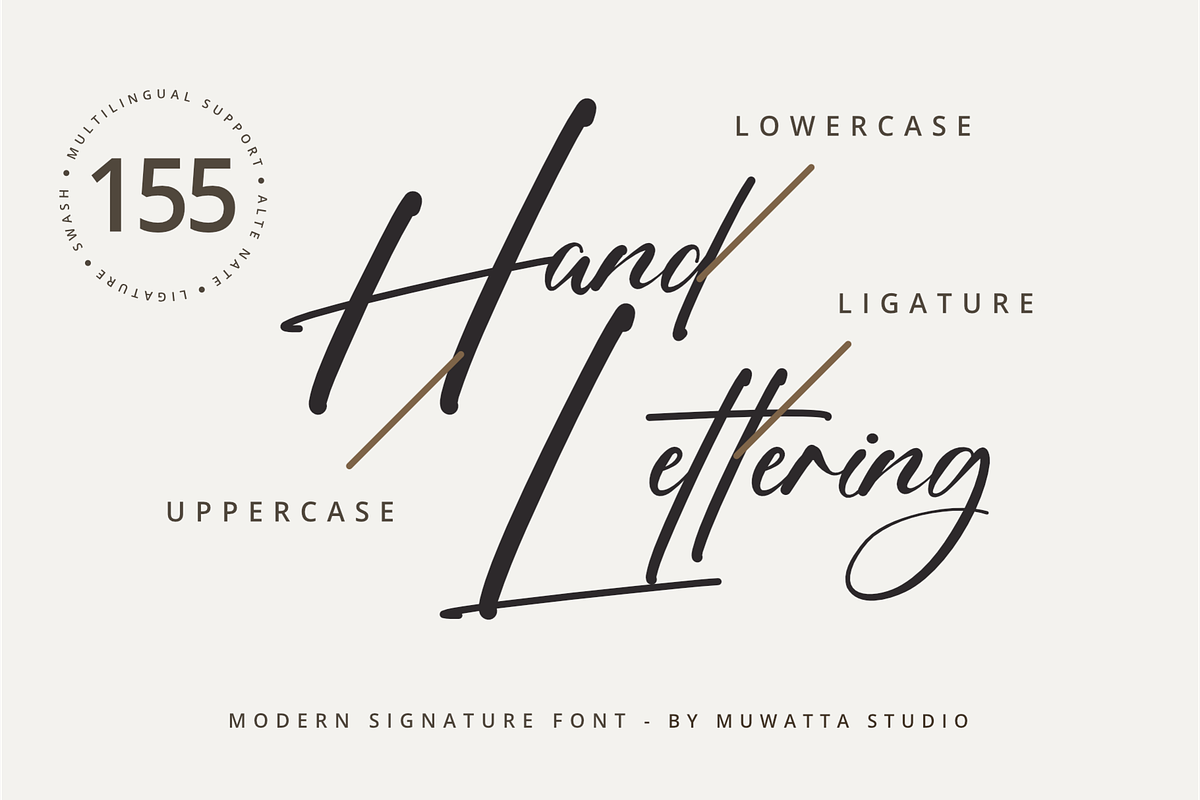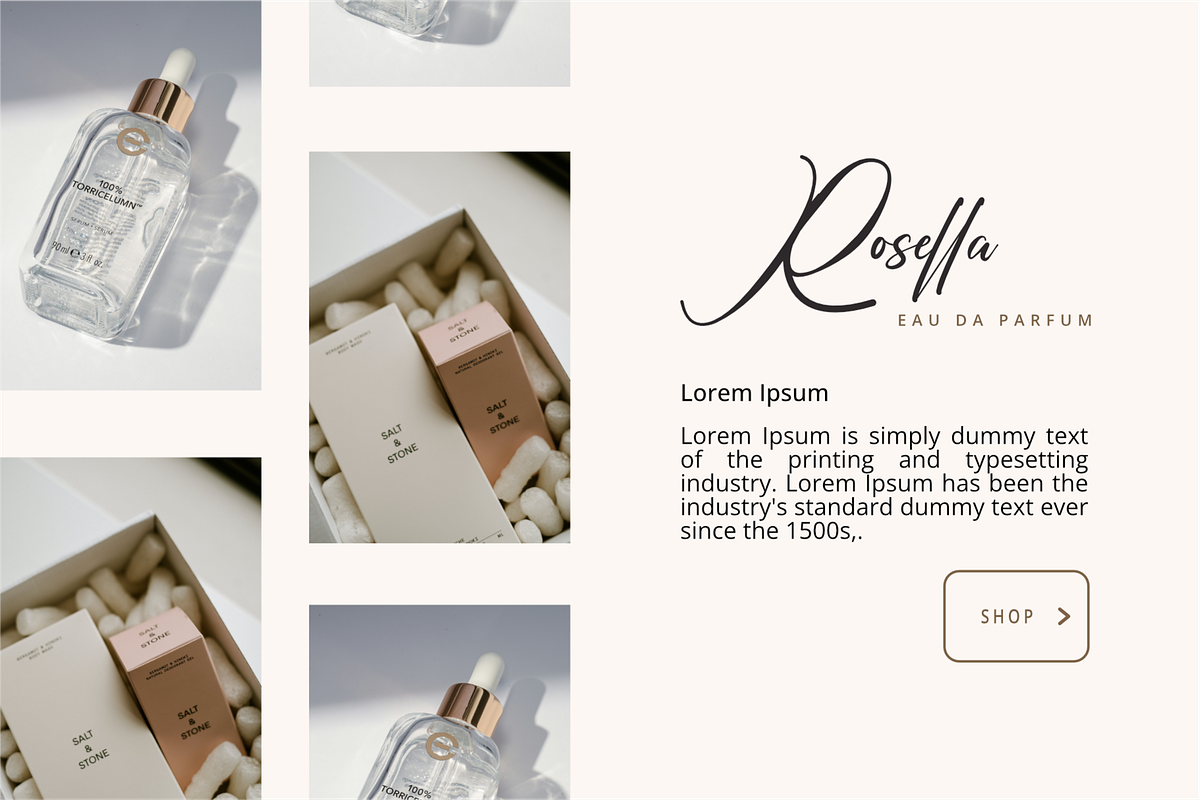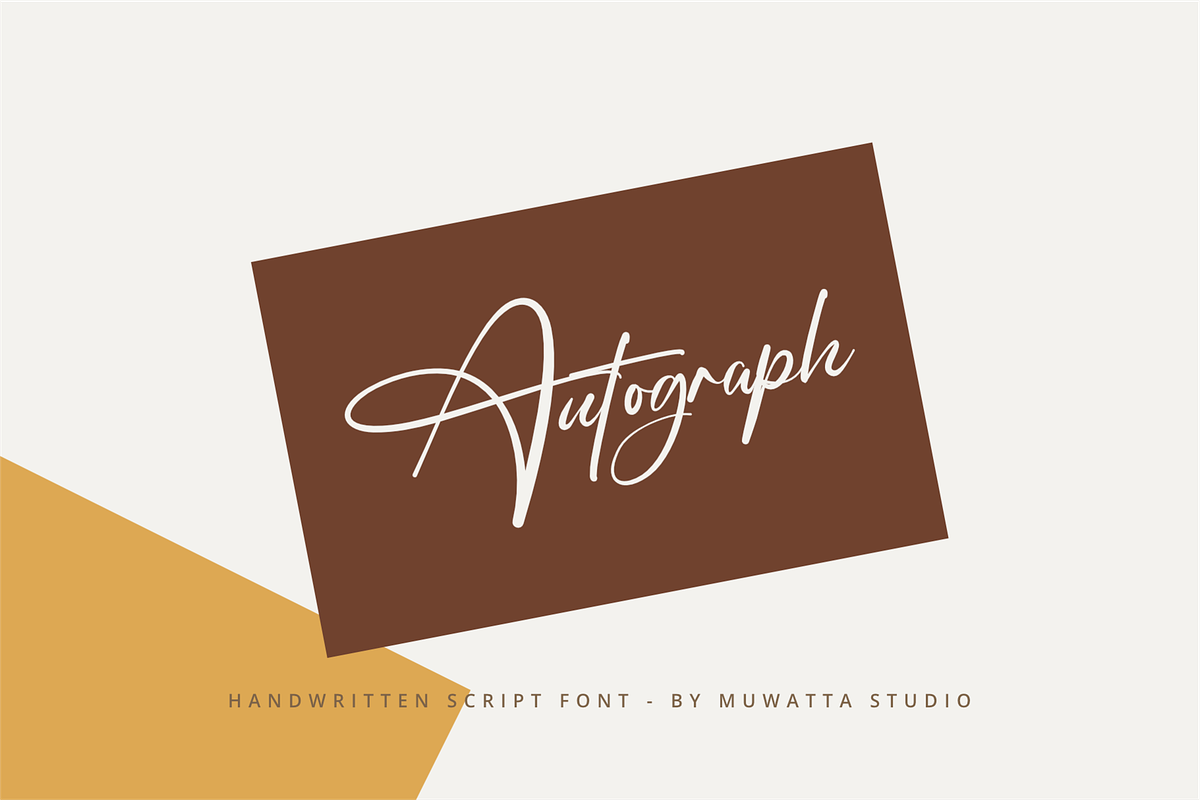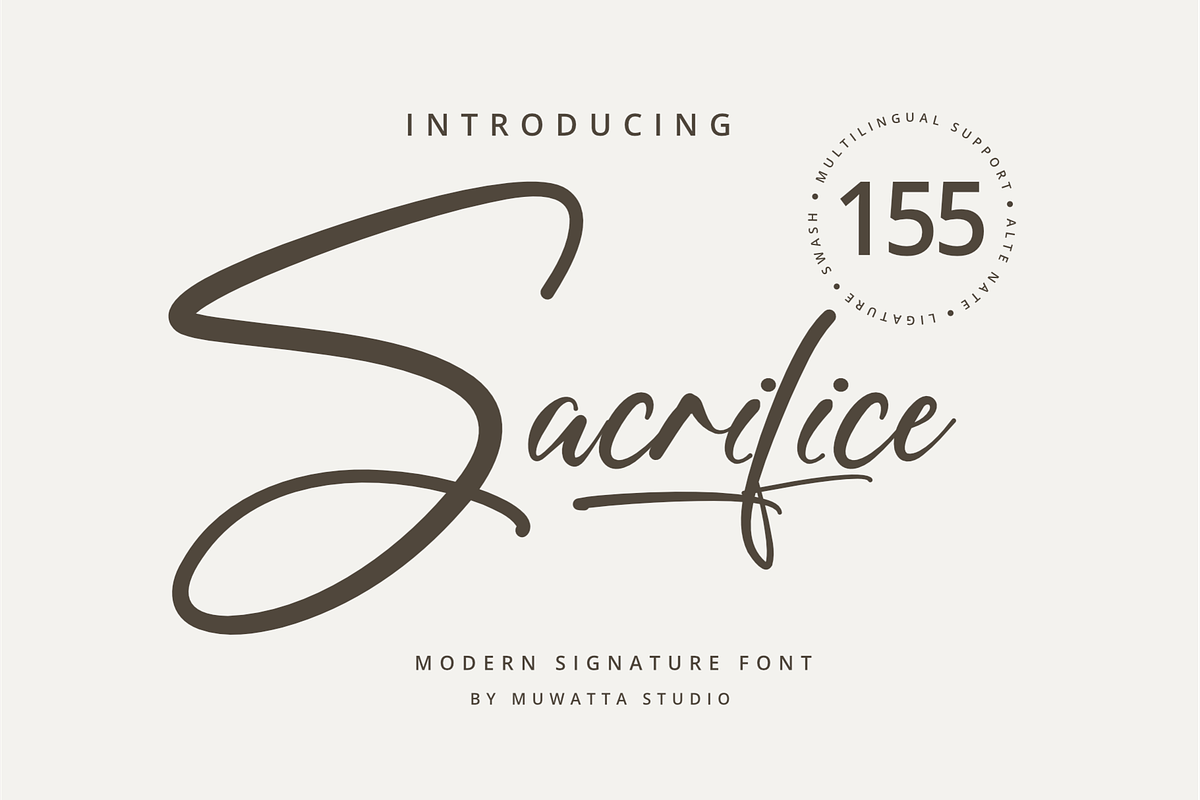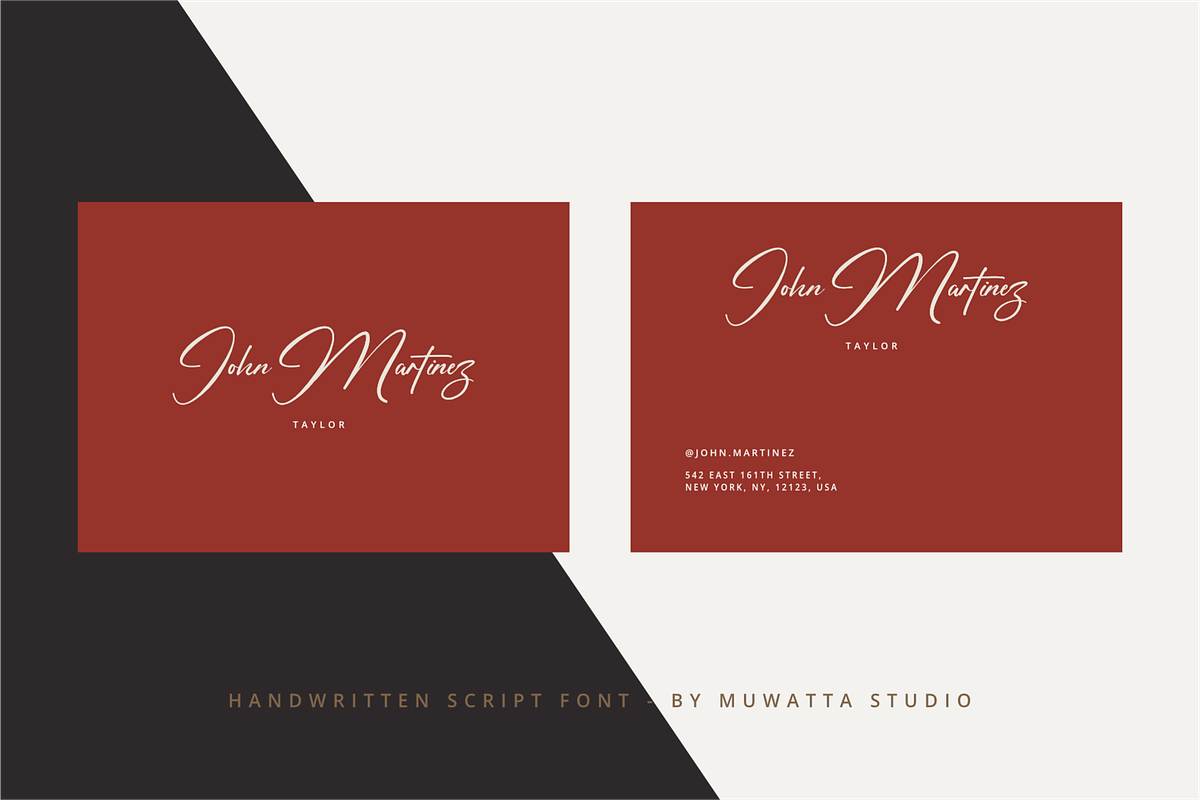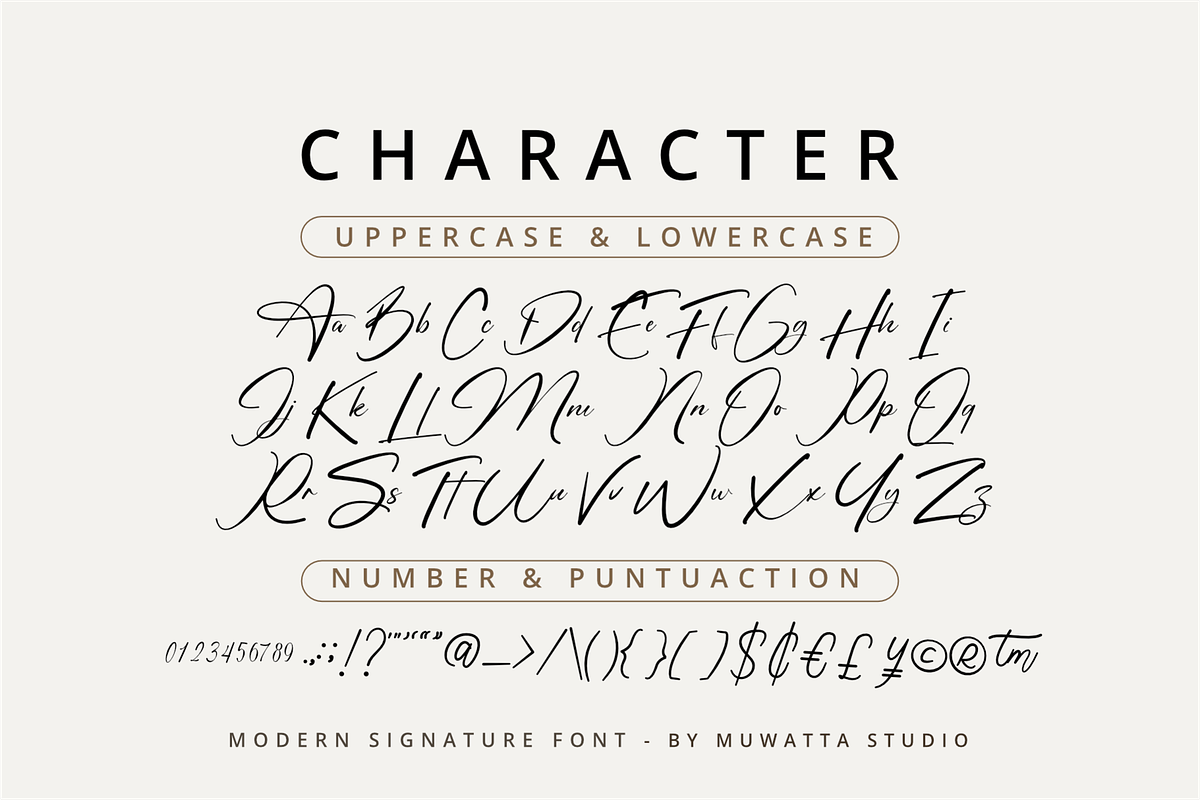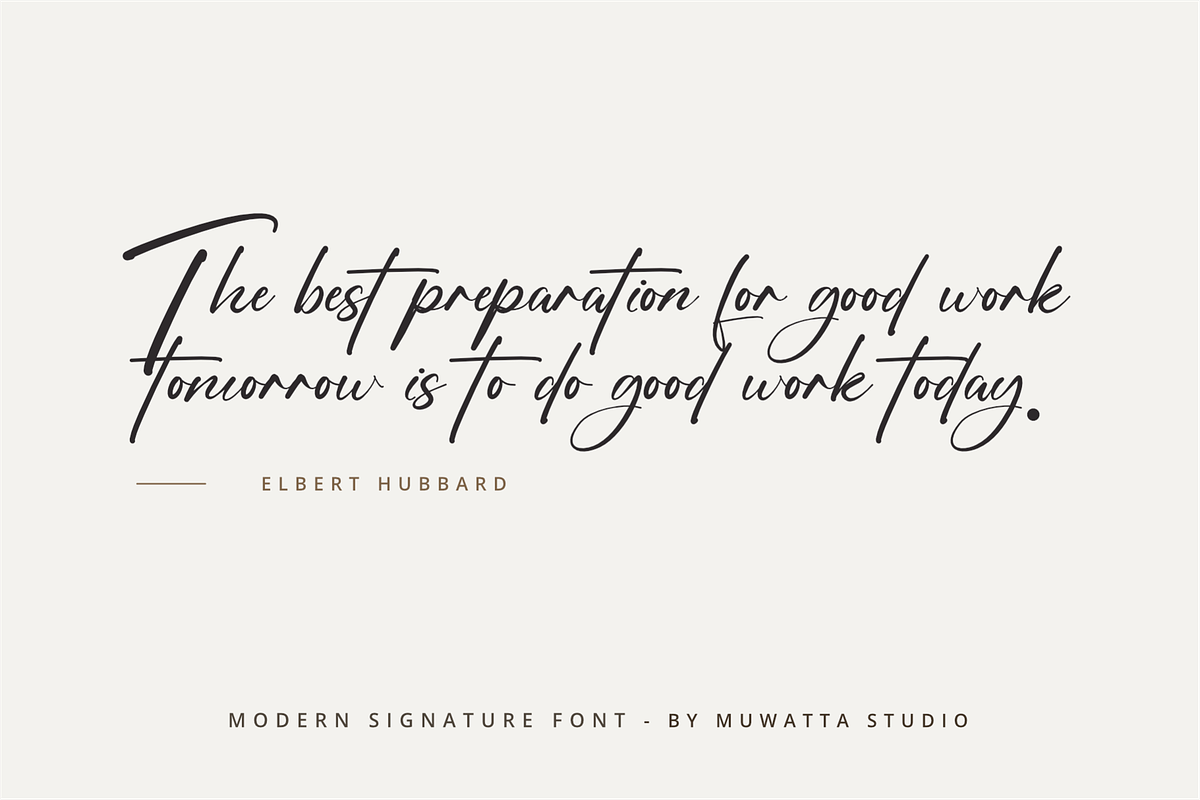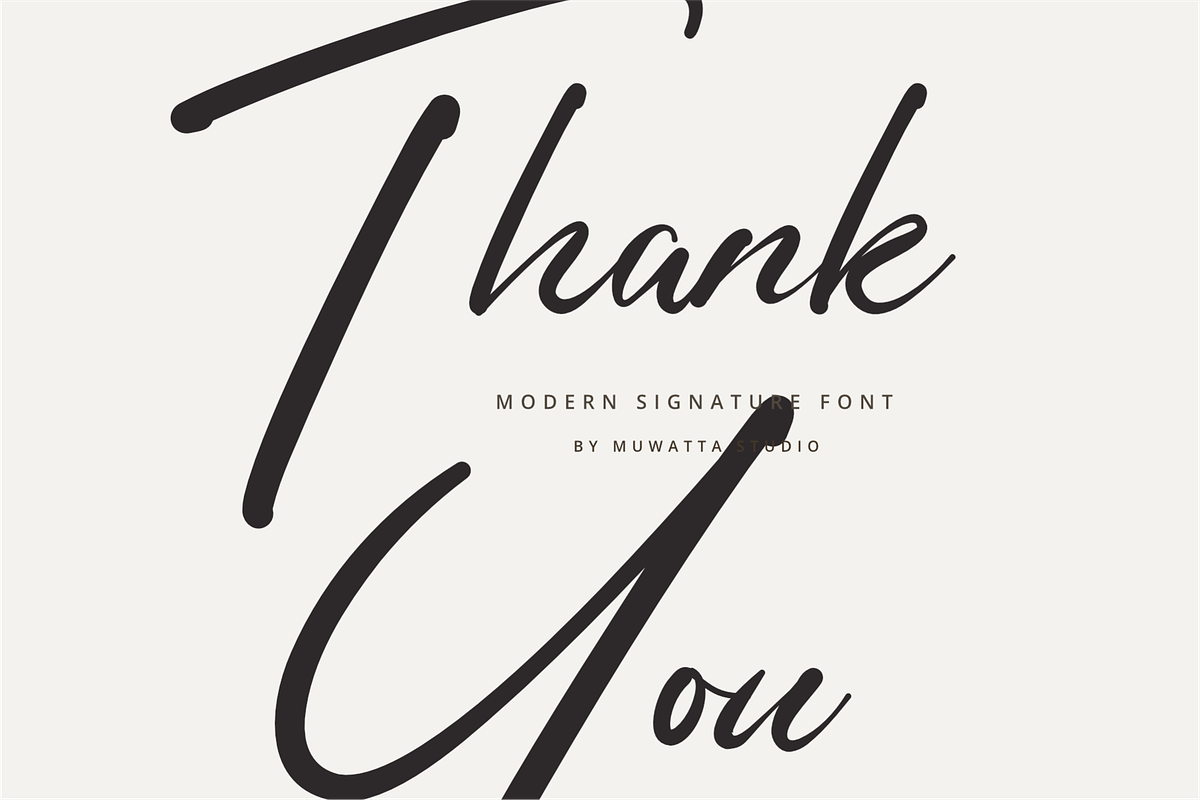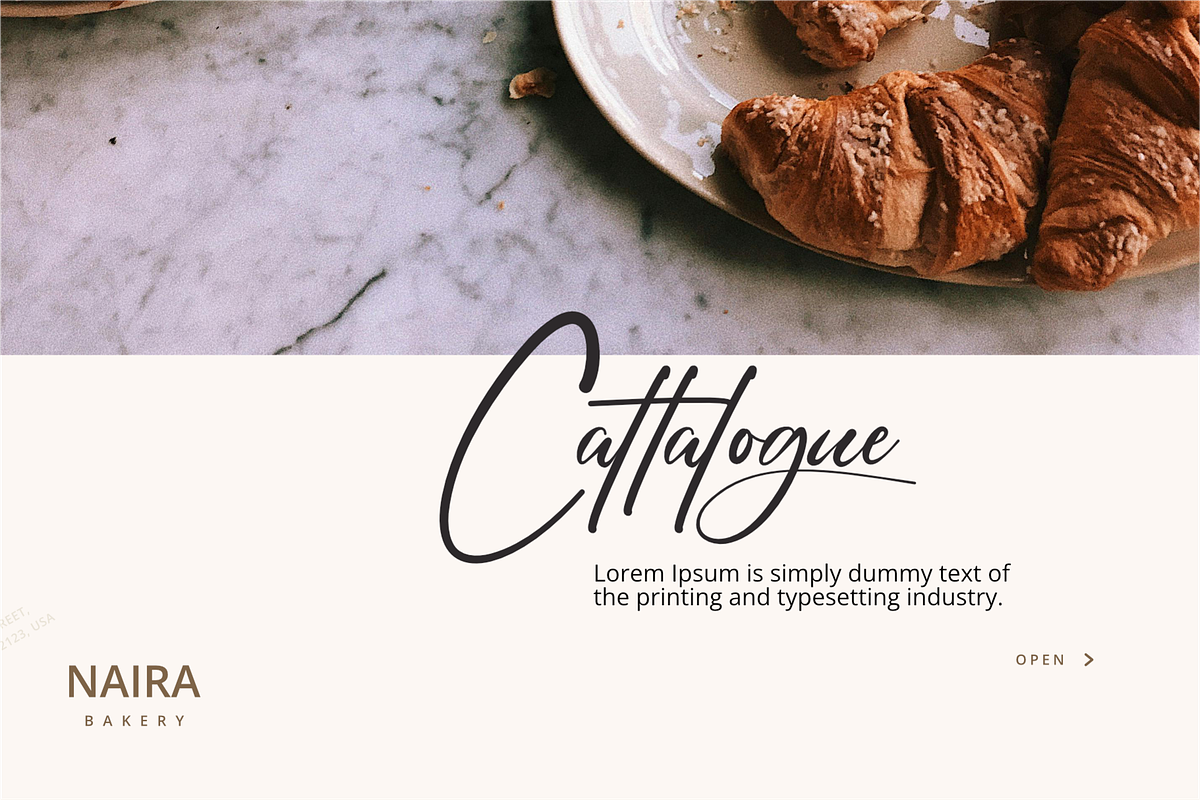
Sacrifice Modern Signature Font
Sacrifice is an artistic calligraphy font that combines classic elegance with a deep emotional touch. Designed with soft flowing ink strokes yet full of character, this font creates a dramatic and meaningful feel in every letter.
-Full alphabet with Uppercase and Lowercase A-Z for script
-Numbers for all fonts
-Punctuation and symbols for all fonts
-Alternates Lowercase script
-Ligature Lowercase script
-Swash
-Multilingual support all fonts